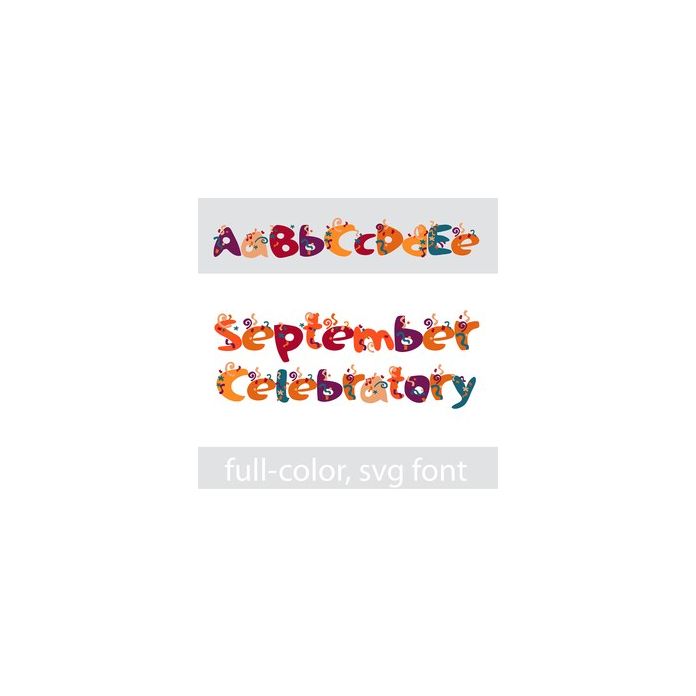
This full-color font features a colorful, autumn palette and lots of celebratory confetti. There is an alt case w/ additional colors you can access through your system or Silhouette's glyph map.